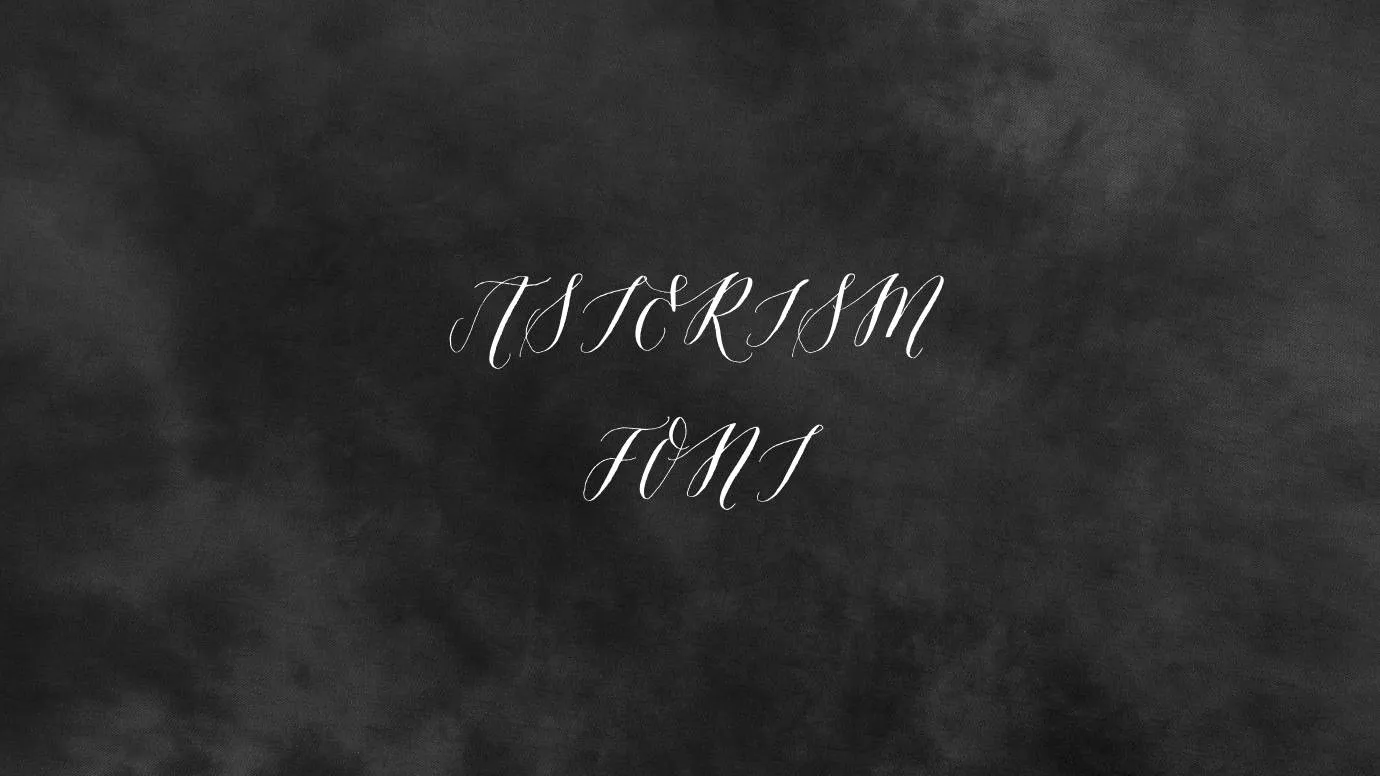
Asterism Font Family is an elegant calligraphy typeface along with a moving baseline and plenty of shining personalities like ITC Kabel Font. This hand-craft font was designed based on one of Molly’s signature calligraphy styles and pairs wisely with Icing,
Saint Agnes and Frosted. Great Lakes Lettering was published in 2012 and designed by the two master designers Dathan Boardman and Molly Erickson.
Asterism Font Family
NameAsterism Font
DesignerMolly Jacques Erickson, Dathan Boardman
FoundryGreat Lakes lettering
StyleCalligraphy
Date Released2012